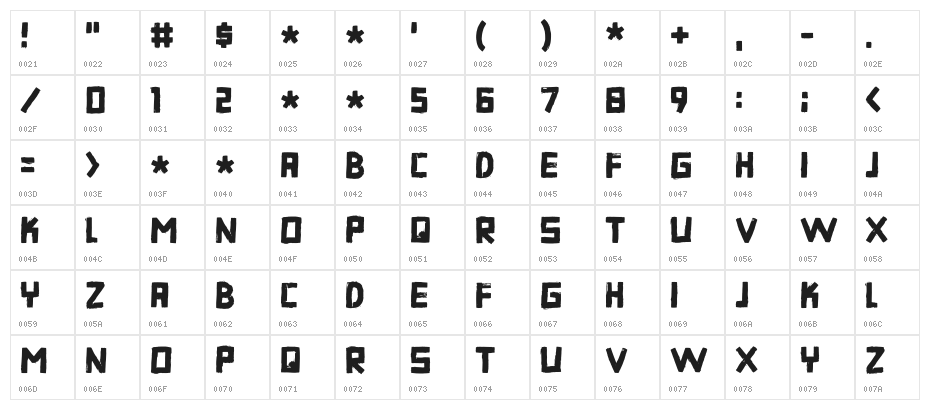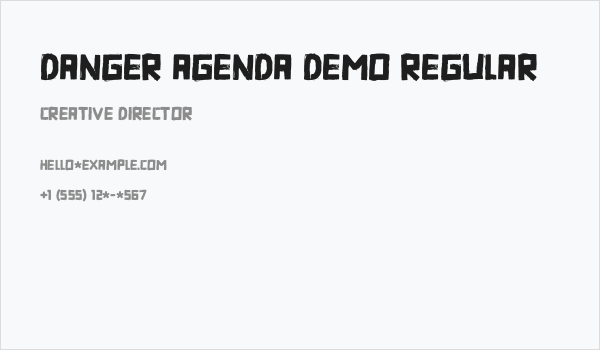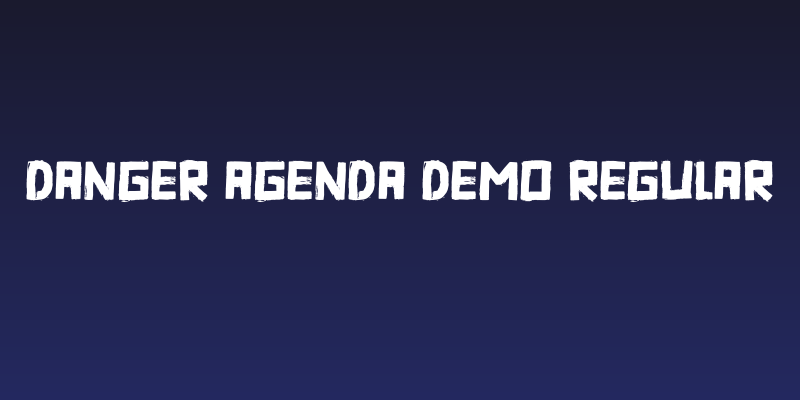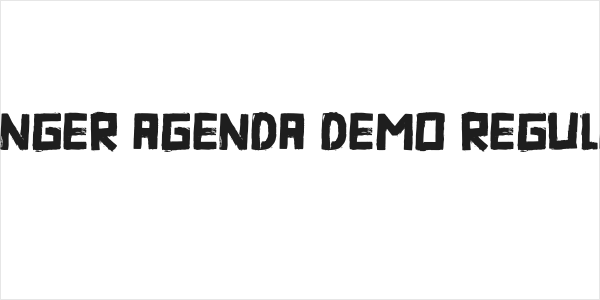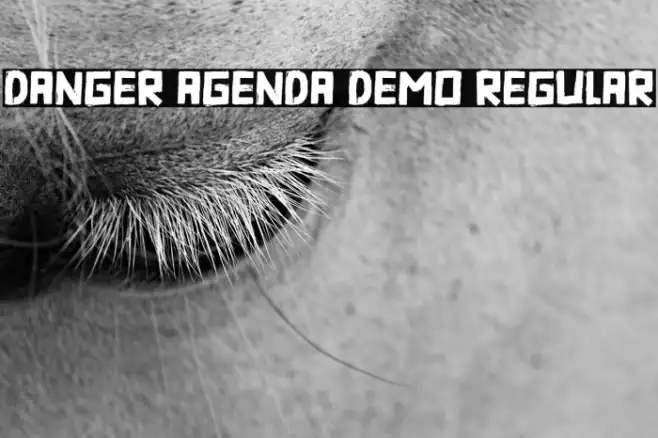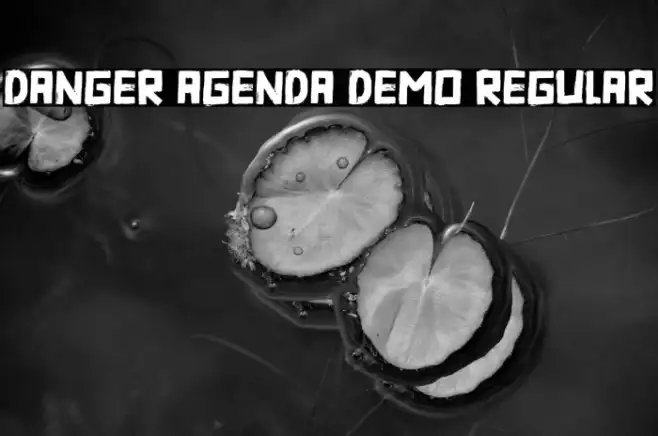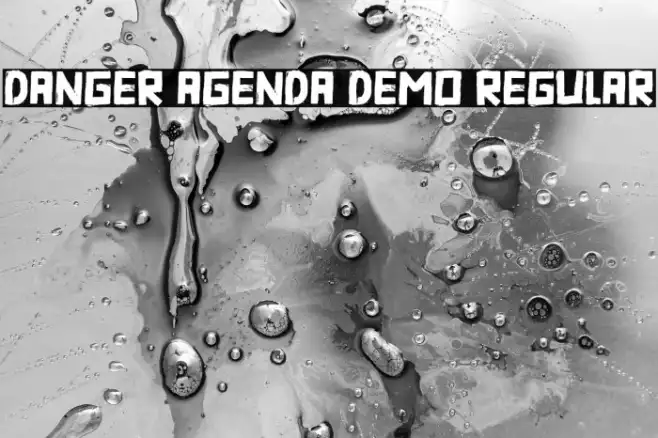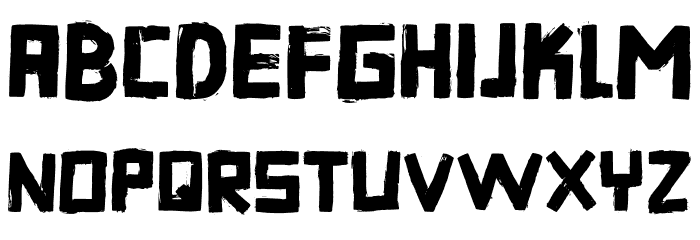
Danger Agenda DEMO Regular Font
Danger Agenda DEMO Regular Description
This font exhibits a bold and rugged style, characterized by its thick, uneven strokes and a distressed appearance. The letters have a hand-painted look, giving them a raw and edgy feel. The uppercase and lowercase letters maintain a consistent style, with a slightly condensed form that enhances their boldness. The numbers and special characters follow the same aesthetic, ensuring a cohesive look across all elements. This font's unique texture and strong presence make it stand out, ideal for projects that require a striking and impactful visual statement.
| Width | Condensed |
| Overall Style | Modern, Edgy |
| Proposed Projects | Ideal for posters, album covers, streetwear branding, and any project needing a bold, edgy look. |